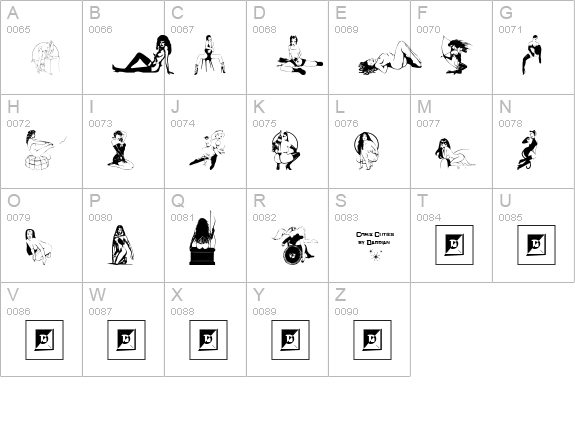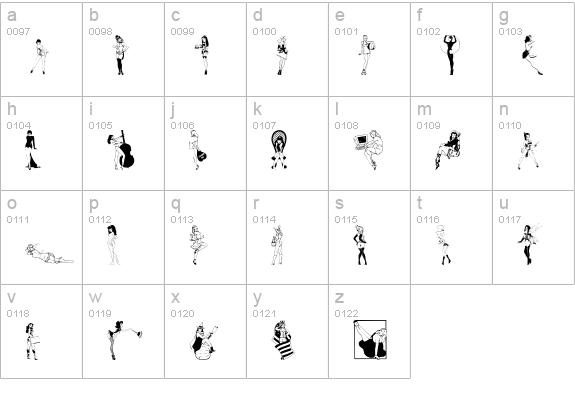
Comix Cuties Font Details
Comix Cuties font is a delightful and playful typeface that brings a touch of whimsy to any design project. With its charming and cartoonish style, this font is perfect for creating eye-catching headlines, posters, greeting cards, and more. The rounded edges and bold lines give Comix Cuties a friendly and approachable appearance, making it ideal for conveying a sense of fun and creativity. What's even better is that Comix Cuties font is completely free to download at FontsMarket.com. Whether you're a professional graphic designer or just someone looking to add a bit of charm to your personal projects, this font is a fantastic choice. So go ahead and give your designs a playful twist with Comix Cuties font today!